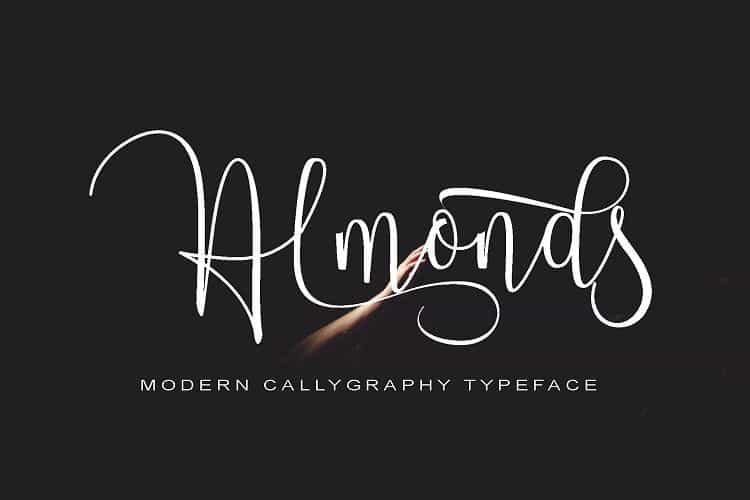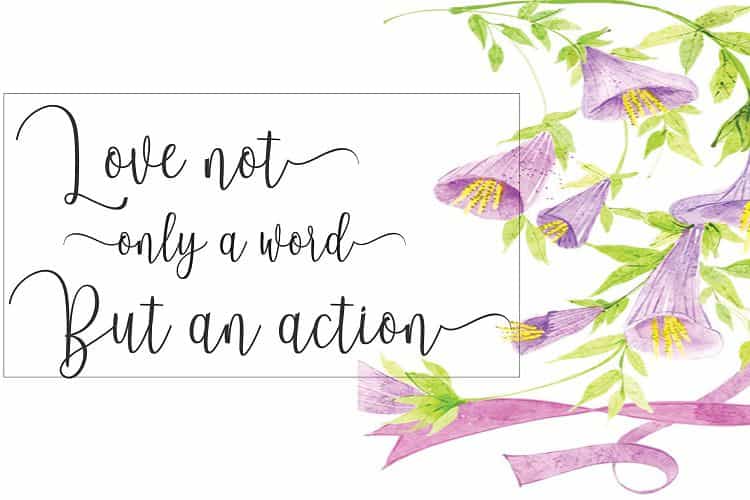
Introducing Almonds Font. Almonds a type of work that is purely handwritten, has its own traits and the style of monoline. This is great for invitations, signatures, blogs, social media, business cards and product brands.